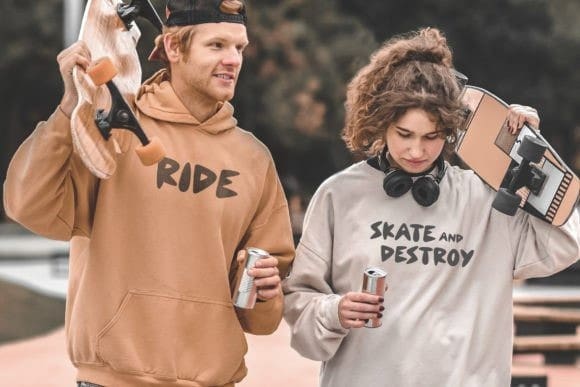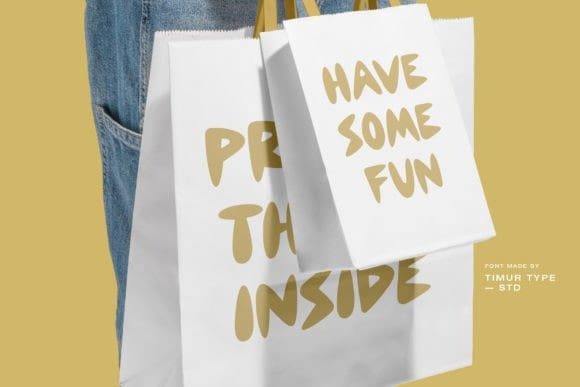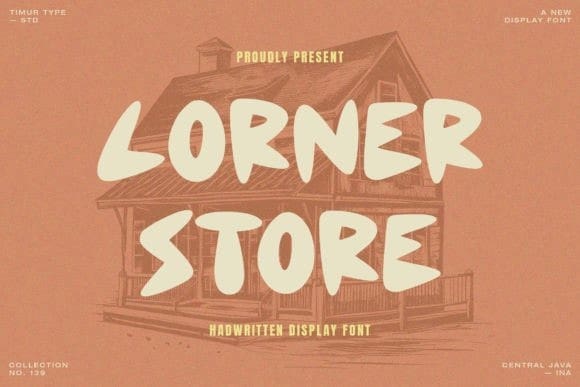
Corner Store Font
Corner Store Font, this collection of carefully crafted fonts is designed to add an art-focused touch to your related projects.
Whether you’re creating stunning invitations, posters, dazzling signage, or a stunning website, our fonts give you the perfect tools to create pop and beauty in your designs.
This font is thoughtfully designed with swooping strokes, subtle flourishes, and intricate details, capturing the essence of any project you create.